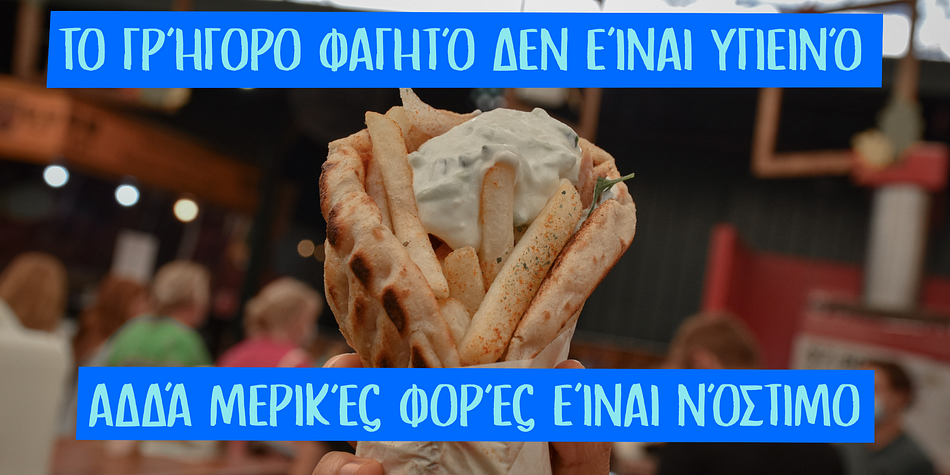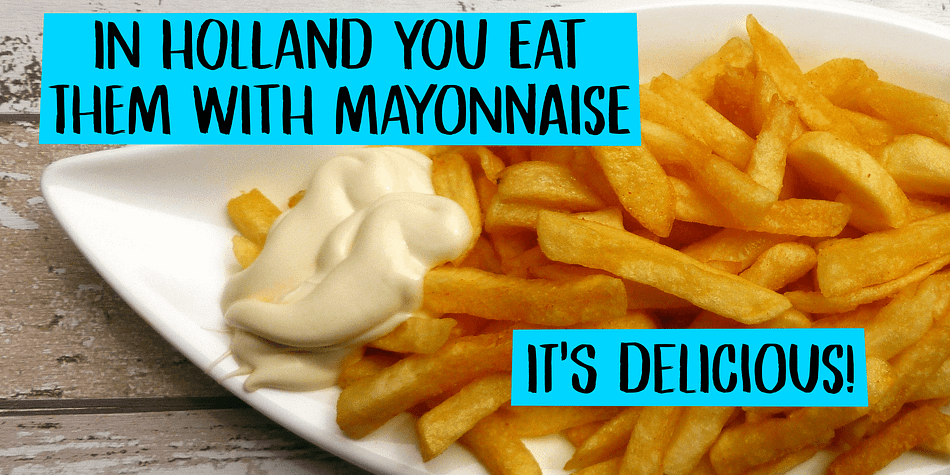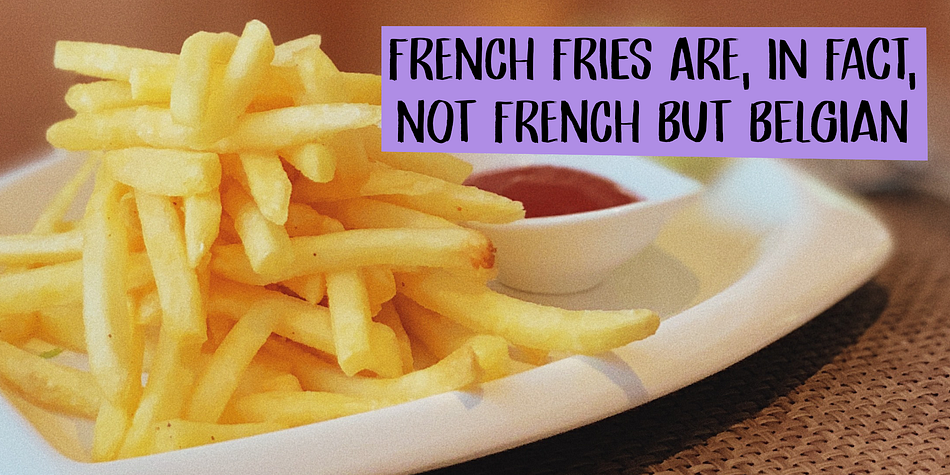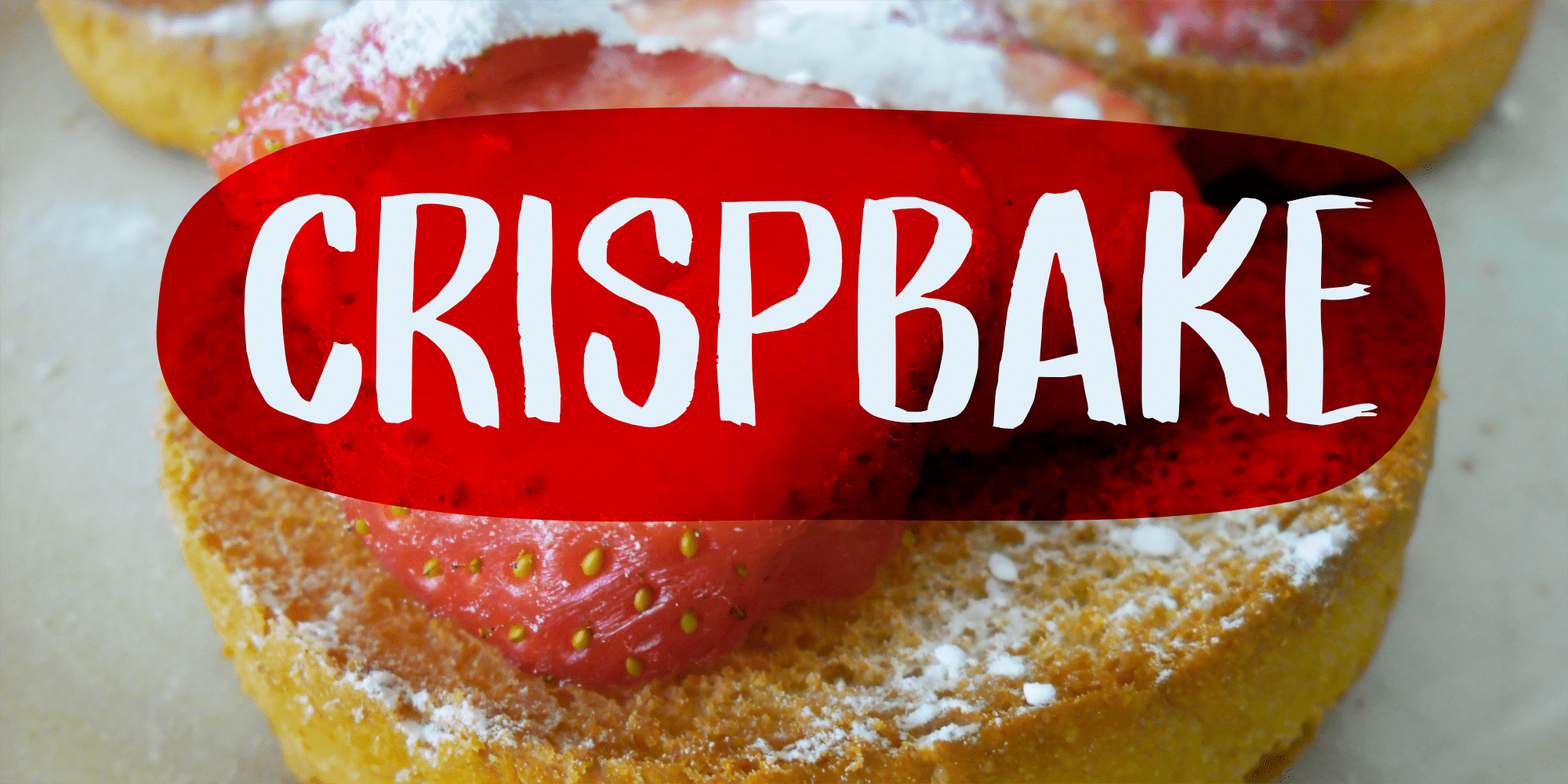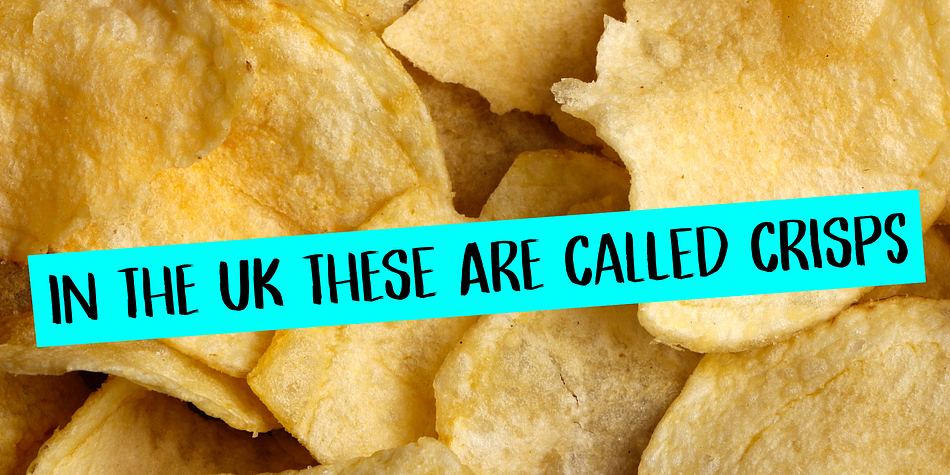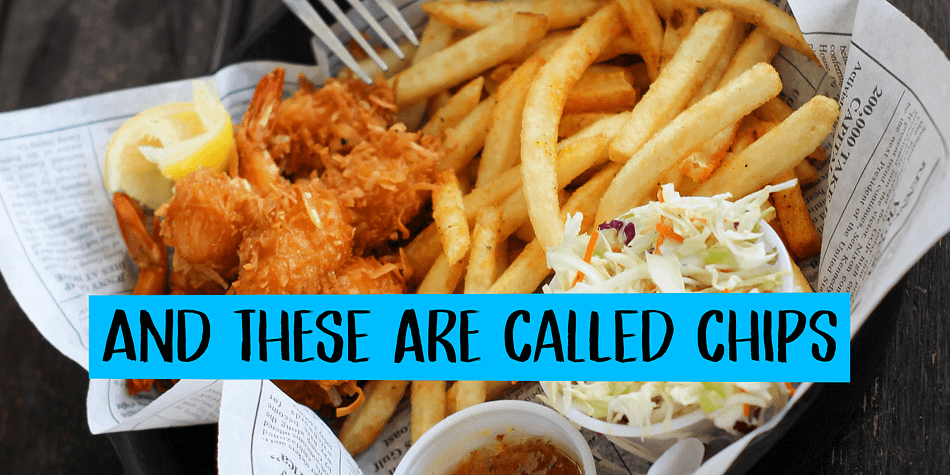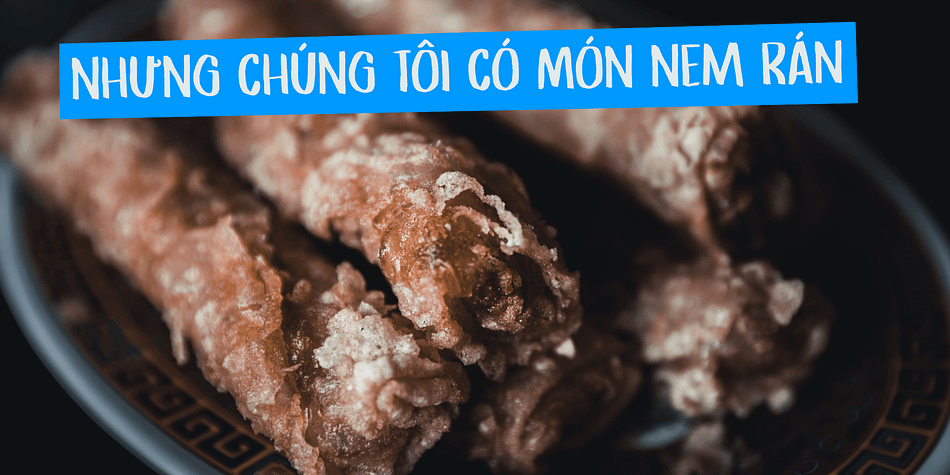
Designed by David Kerkhoff, Crispbake is a hand display and hand drawn font family. This typeface has two styles and was published by Hanoded.
A crispbake is a kind of cracker or rusk you eat for breakfast. At least, in Holland we do. They are called ‘beschuit’, they are round and they come in a pack of 13 (which is a baker’s dozen). It turns out that this odd number of crispbakes in a pack comes from the fact that the ovens they were baked in held 13 crispbakes in a row and it was easier to pack them like that.
So, should this question pop up during a game of trivial pursuit, you now know the answer!
Crispbake font is a crunchy brush font. Completely handmade using a brush and Chinese ink. This fresh all caps font comes with a set of alternate glyphs and extensive language support, including Vietnamese and Greek.